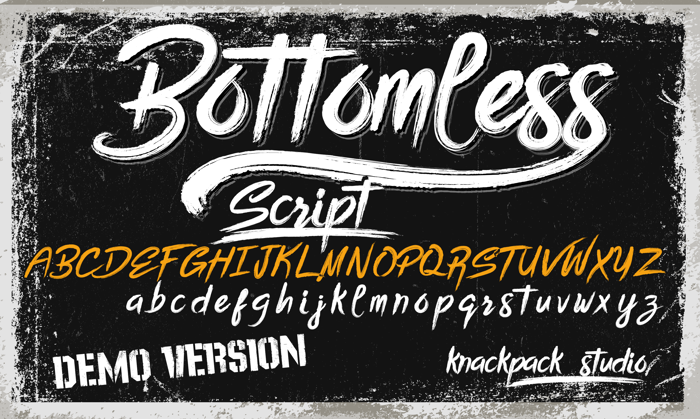
Bottomless Script Font
BOTTOMLESS SCRIPT
- Stroke brush inspired font perfect on your school projects, covers, etc.
- Lifestyle modern theme font for branding, website, mobile app etc.